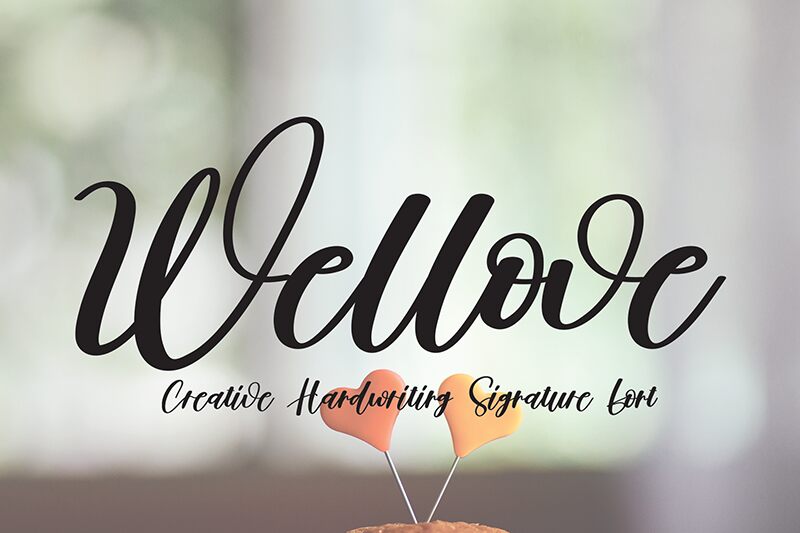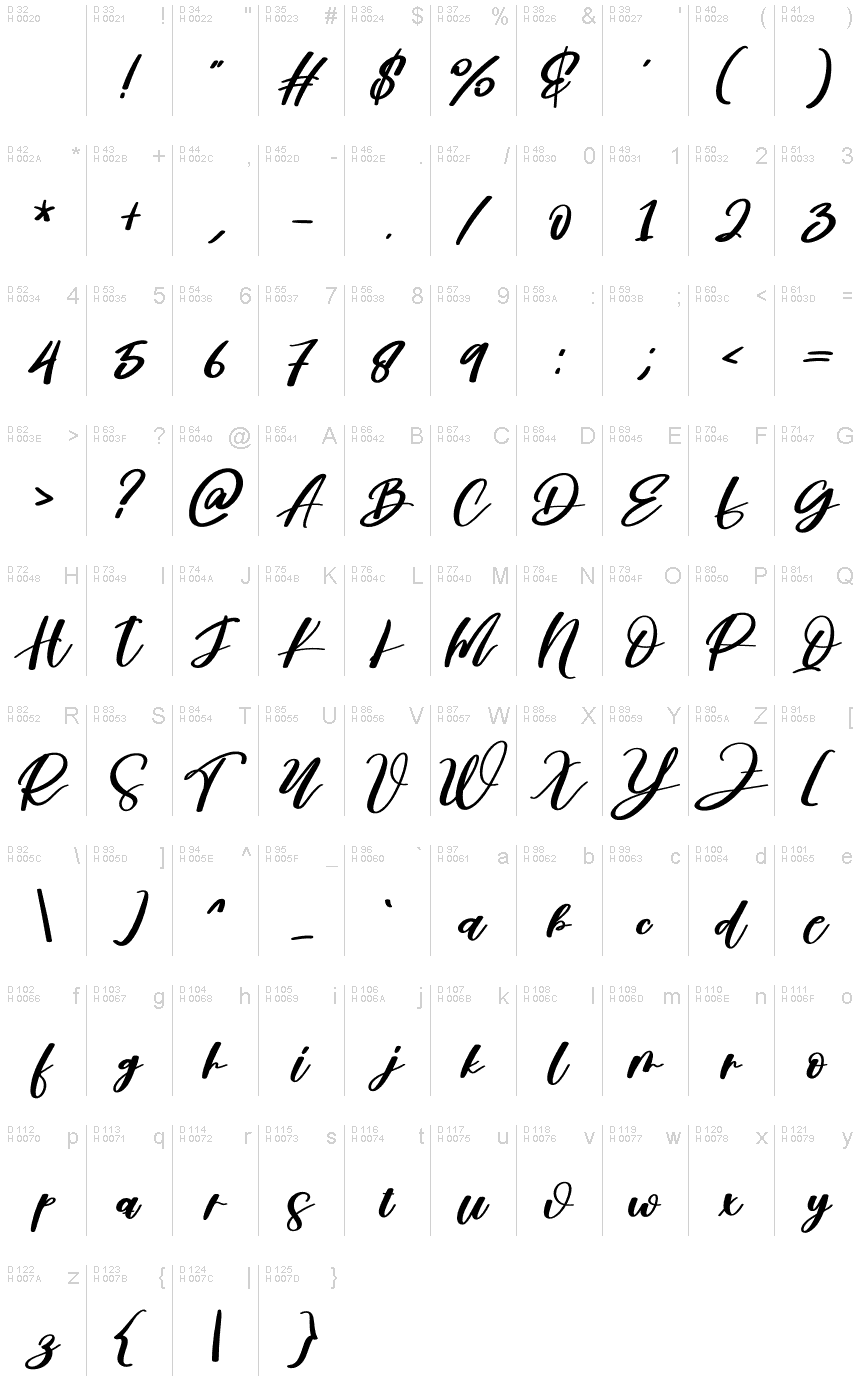
Wellove
Wellove, a stunning calligraphy font designed by scratchones, is the perfect typeface for adding elegance and sophistication to any project. Its flowing lines and intricate details make it ideal for wedding invitations, greeting cards, logos, and branding materials. The semi-bold font weight of Wellove adds a touch of modernity to its classic calligraphic style. With its wide range of use cases, this font is perfect for designers looking to elevate their work with a truly refined touch. Try it out today and experience the beauty of Wellove for yourself!
the latest style letters are perfect for wall displays, wedding invitations, social media post logos, advertisements, product packaging, product designs, labels, photography, watermarks, invitations, stationery, and any project that requires taste handwriting.